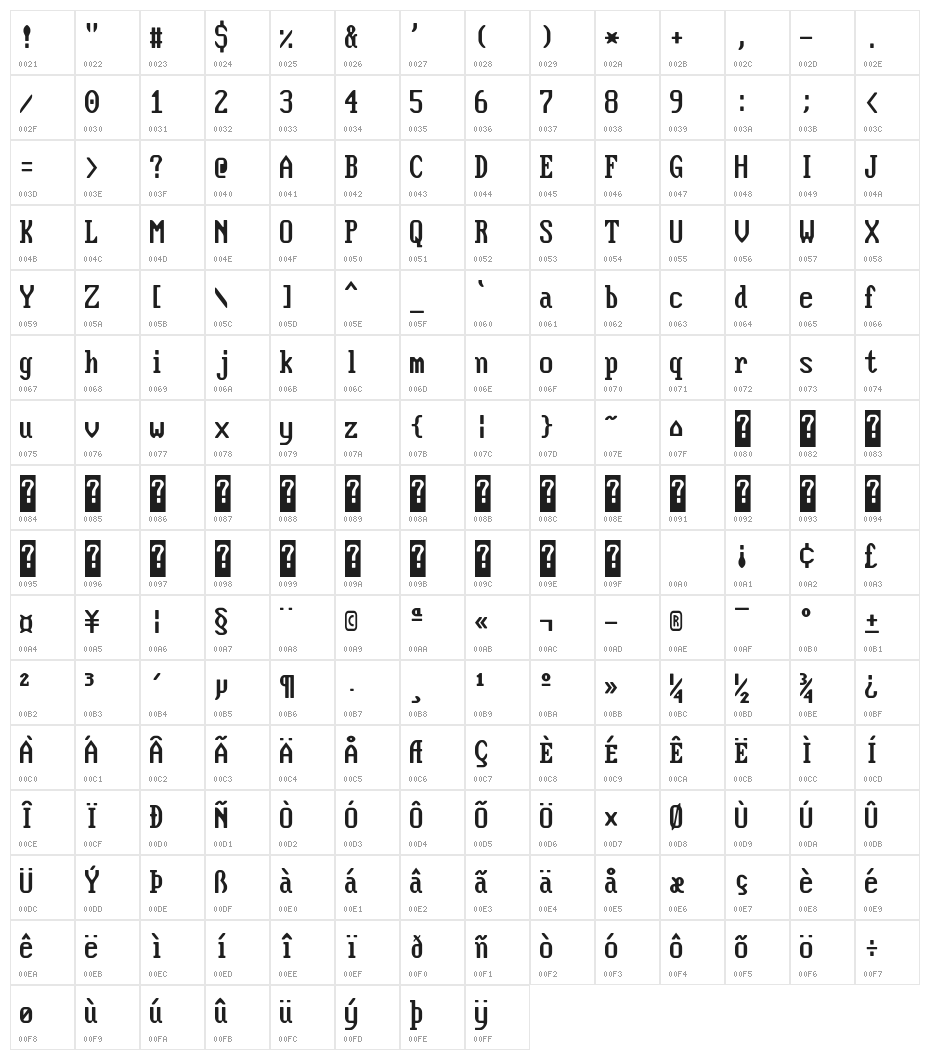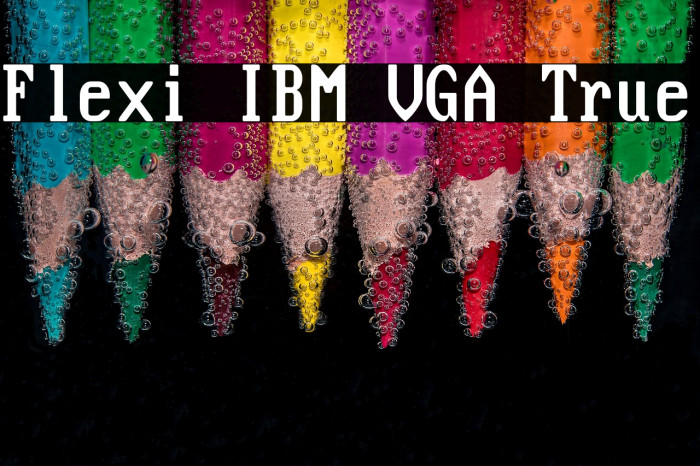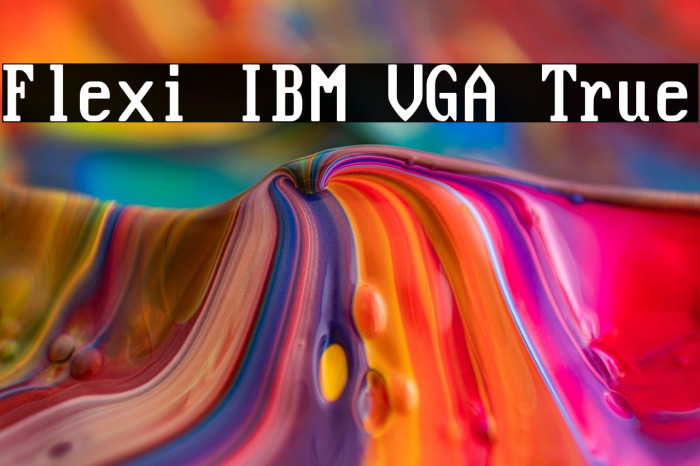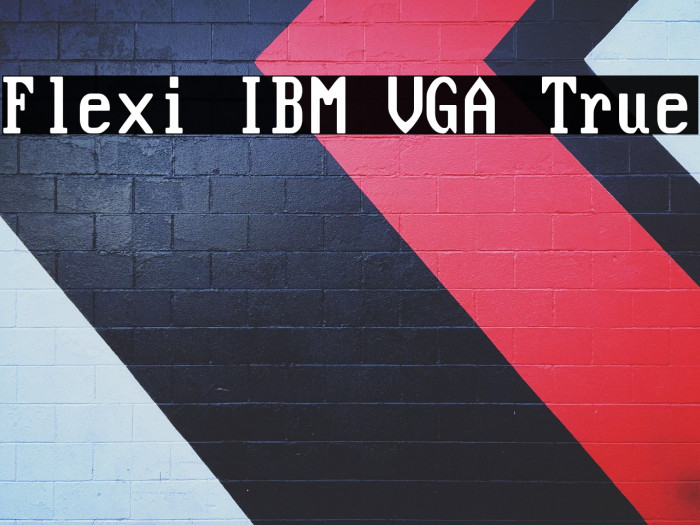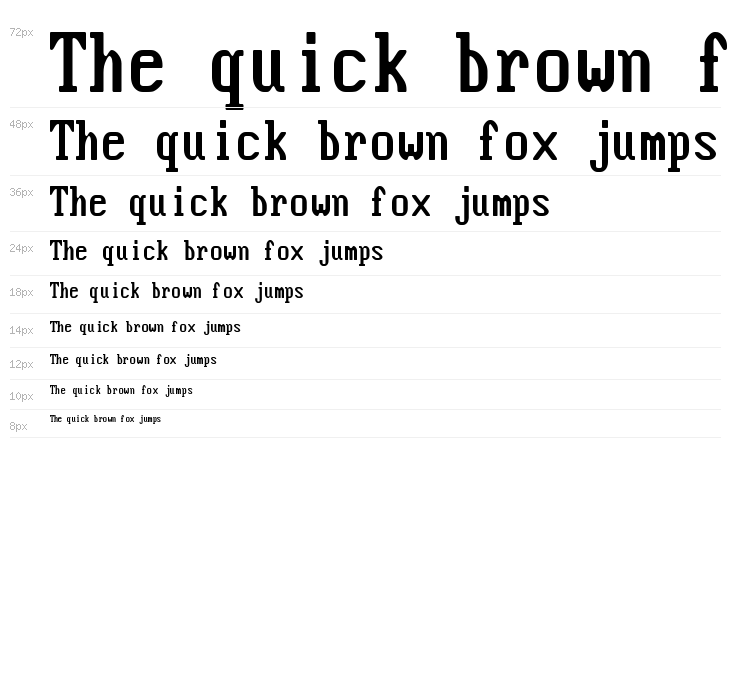
Flexi IBM VGA True Font
Flexi IBM VGA True Description
This font features a bold, structured design with a modern twist, characterized by its strong vertical lines and subtle curves. The uppercase letters are tall and commanding, while the lowercase letters maintain a consistent height, offering a balanced look. The numbers are clear and legible, making them suitable for various applications. Special characters are designed with the same boldness, ensuring consistency across all elements. The overall appearance is clean and professional, making it versatile for both digital and print media.
| Proposed Projects | Ideal for branding, headlines, posters, and digital interfaces where a strong, modern presence is desired. |